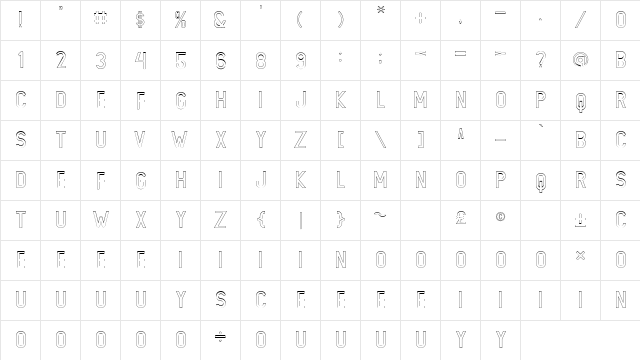
LIONELLO Stroke Font Preview
LIONELLO Stroke
LIONELLO Stroke Font Details
| Style | Stroke |
| Foundry | Edric Studio |
| Designer | M Nouval |
Design Context for LIONELLO Typeface
LIONELLO is a composed and adaptable typeface that performs quietly and consistently across a wide range of design contexts.